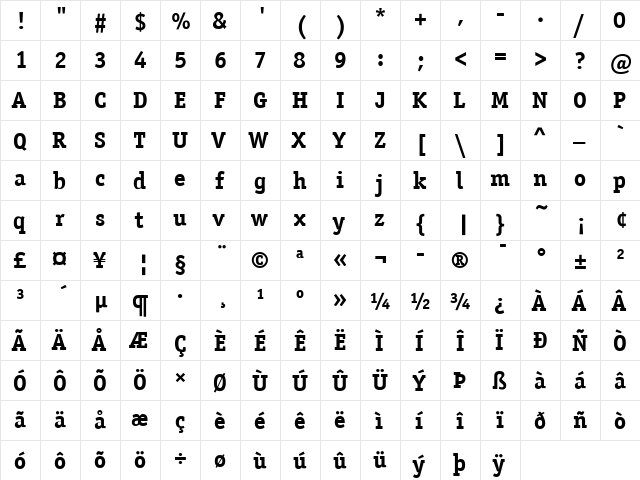
OfficinaSerITC Bold
Design Context for OfficinaSerITC Typeface
OfficinaSerITC is a composed and adaptable typeface that performs quietly and consistently across a wide range of design contexts. Its bold stroke weight gives it real presence on the page.
Pro Tip: Use OfficinaSerITC in both headline and body roles to test its range before committing to a single application.